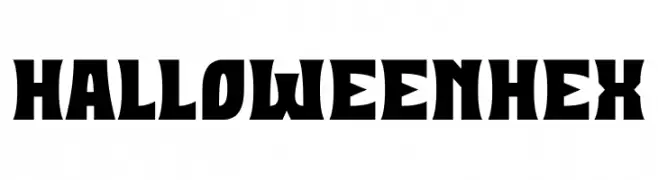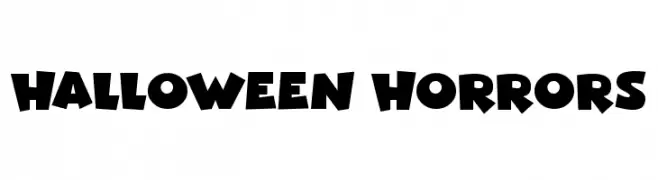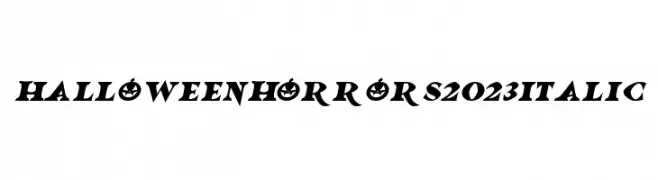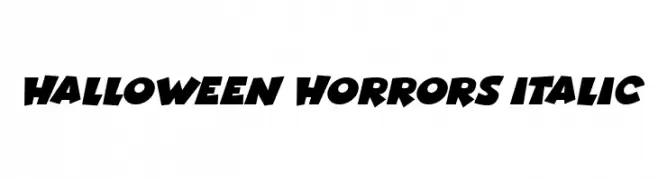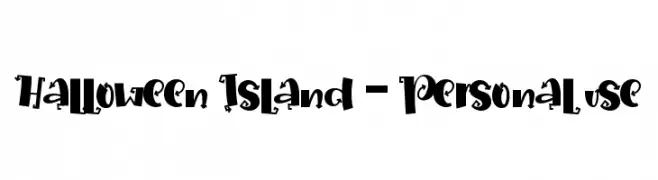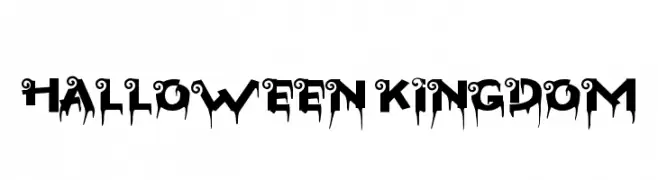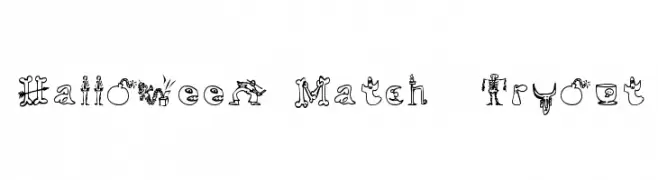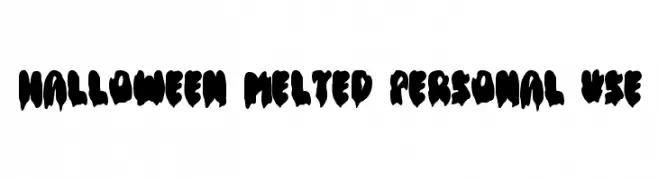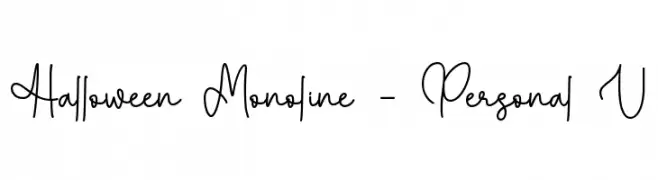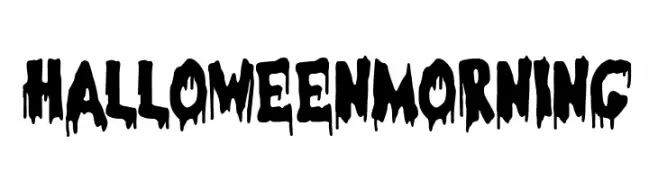
A bold, angular font with a spooky, Halloween-inspired aesthetic.
A bold, angular, and italicized font with a modern, edgy style.
A bold, playful font with a spooky, Halloween-inspired design.
A bold, spooky font with jagged edges and thematic Halloween elements.
A bold, italicized font with a spooky, Halloween-themed design.
A playful, spooky font with quirky, decorative elements ideal for Halloween themes.
A playful, spooky font with curled accents and dripping effects, perfect for Halloween themes.
A playful monoline font with flowing, interconnected strokes.
A bold, brush-textured font with a playful, spooky vibe.
A spooky, dripping font perfect for Halloween themes.
A bold, brushstroke font with an energetic, hand-painted style.
A bold, brush-style font with dynamic, hand-painted strokes.
A bold, jagged font with a horror-themed, hand-drawn style.
A playful, whimsical font with bold, irregular shapes, perfect for festive designs.
A spooky, dripping font ideal for Halloween themes.
A spooky, whimsical font ideal for Halloween themes.
A playful, spooky font with Halloween-themed decorative elements.
A playful, outlined font with a hand-drawn, whimsical style.
A bold, dripping decorative font ideal for spooky or Halloween themes.
A spooky, whimsical font with jagged edges, ideal for Halloween themes.
A bold, expressive handwritten font with dynamic, irregular strokes.
A spooky, Halloween-themed font with spider web and spider accents.
A bold, jagged font with a spooky, playful Halloween theme.
A playful, spooky font with jagged, uneven strokes, perfect for Halloween themes.
A spooky, decorative font with jagged, dripping edges, perfect for Halloween themes.
A spooky, Halloween-themed font with dripping, cobwebbed characters.
A spooky, dripping font ideal for Halloween themes.
Playful, blob-like font ideal for Halloween themes.
A playful, spooky font with bold, irregular lines and a hand-drawn feel.